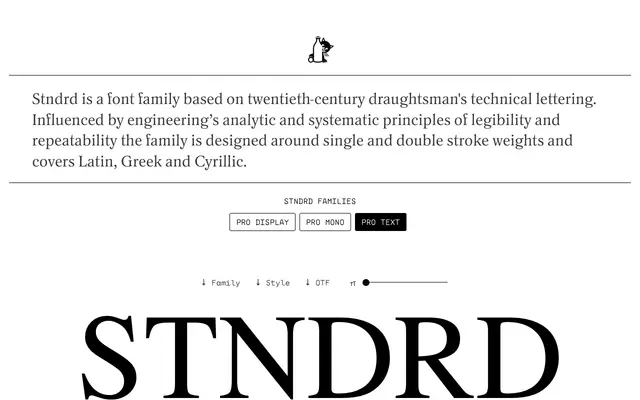
Stndrd
East of Rome · Lewis McGuffie
A typeface family derived from twentieth-century draughtsman's lettering, built around single and double stroke weights for technical and formal settings across Latin, Greek and Cyrillic.
Designed by Lewis McGuffie, Stndrd takes its cue from the analytic and systematic principles of engineering draughtsmanship, particularly the hand-drawn lettering found on plans, schemes and technical documents. The family is split into three subfamilies: Pro Text and Pro Mono for extended typesetting with regular, italic, bold and bold italic, and Pro Display for short-form use in logos, marks and subheadings. Despite its rigorous structural logic, the family retains the softness of its hand-drawn origins, making it well suited to footnotes, diagrams, tags and technical annotation work.
Rooted in twentieth-century draughtsman's technical lettering, Stndrd is a single and double stroke weight sans-serif drawing on engineering principles of legibility and repeatability, placing it firmly in the tradition of instrument lettering and DIN-adjacent technical typefaces.